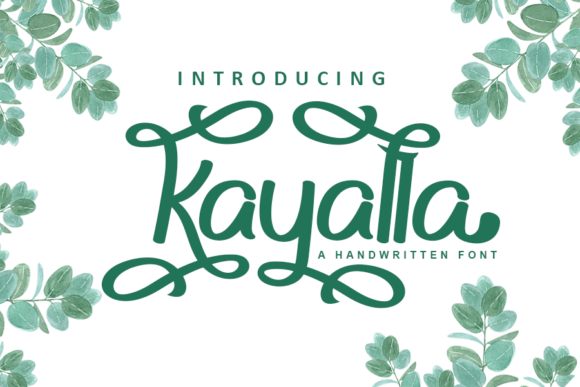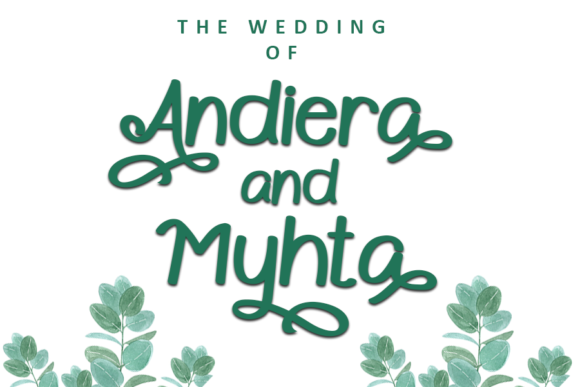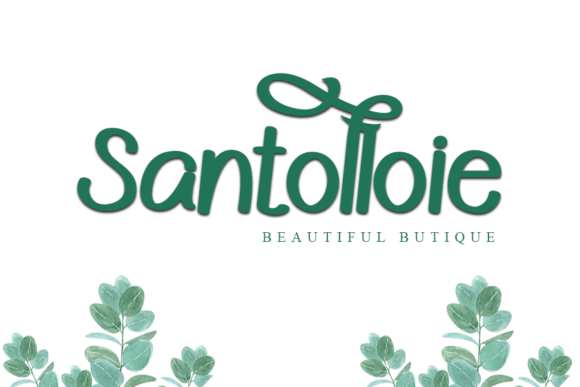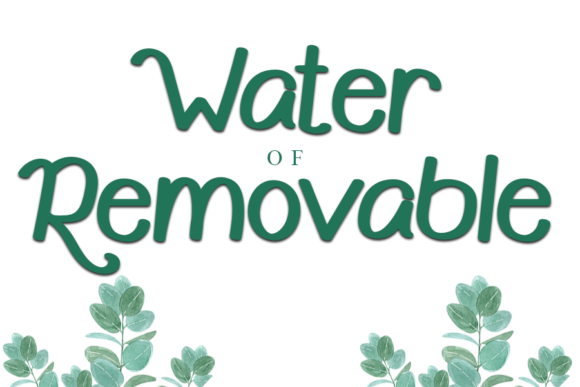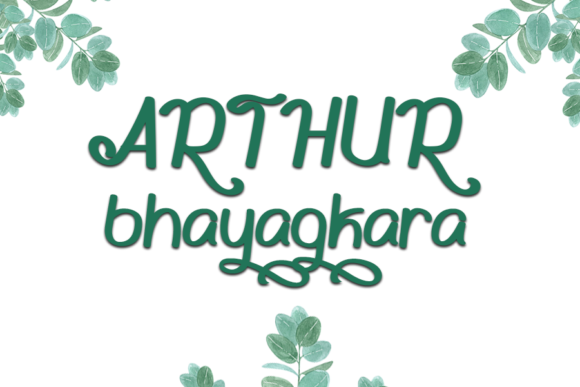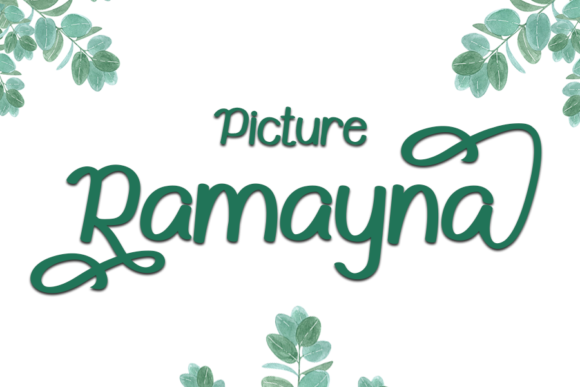
Kayalla Font
About Kayalla Font
Kayalla is a sweet and delicate handwritten font. It looks stunning on wedding invitations, thank you cards, quotes, greeting cards, logos, business cards and every other design which needs a handwritten touch.